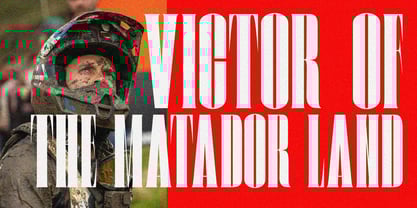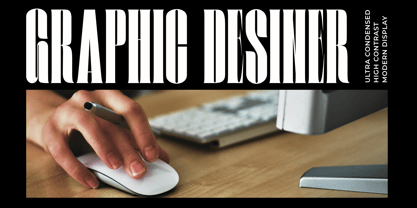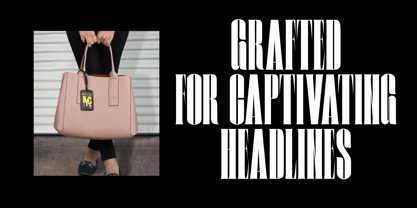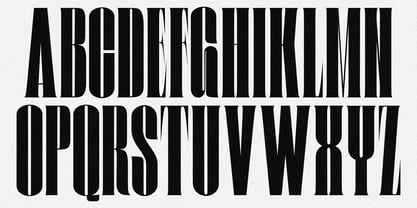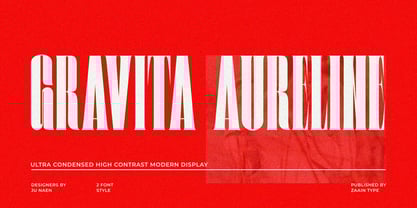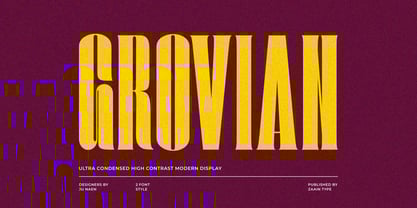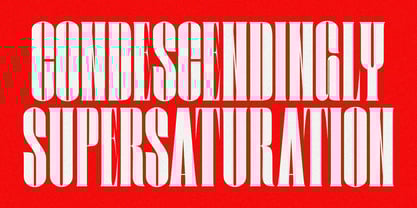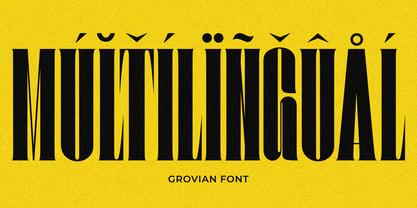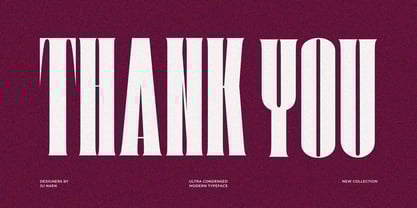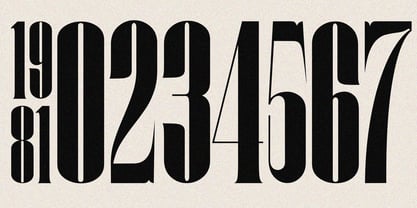
Zt Grovian
by Zaain Type
The Zt Grovian Font Family was designed by Ju Naen and published by Zaain Type. Zt Grovian contains 2 styles and family package options.
Grovian is a condensed serif font designed with a balance of firmness and elegance. With its slender proportions and sharp serif details, Grovian delivers a strong visual character without sacrificing readability. Each letter is crafted with high precision, creating a modern look while retaining a classic touch. Grovian is perfect for magazine headlines, luxury branding, fashion editorials, posters, and any typographic display that requires a classy impression in limited space. Its compact vertical structure makes the text appear tall, elegant, and authoritative. With its refined aesthetics and stylish form, Grovian becomes an ideal choice for designers who want a condensed serif with a bold, professional, and captivating character.
Zt Grovian